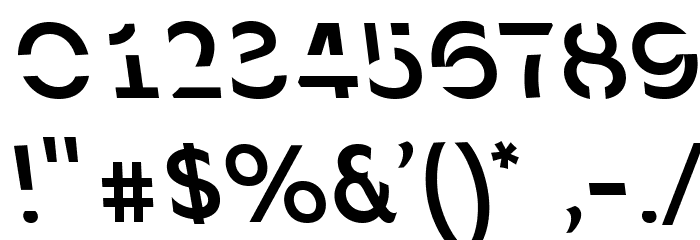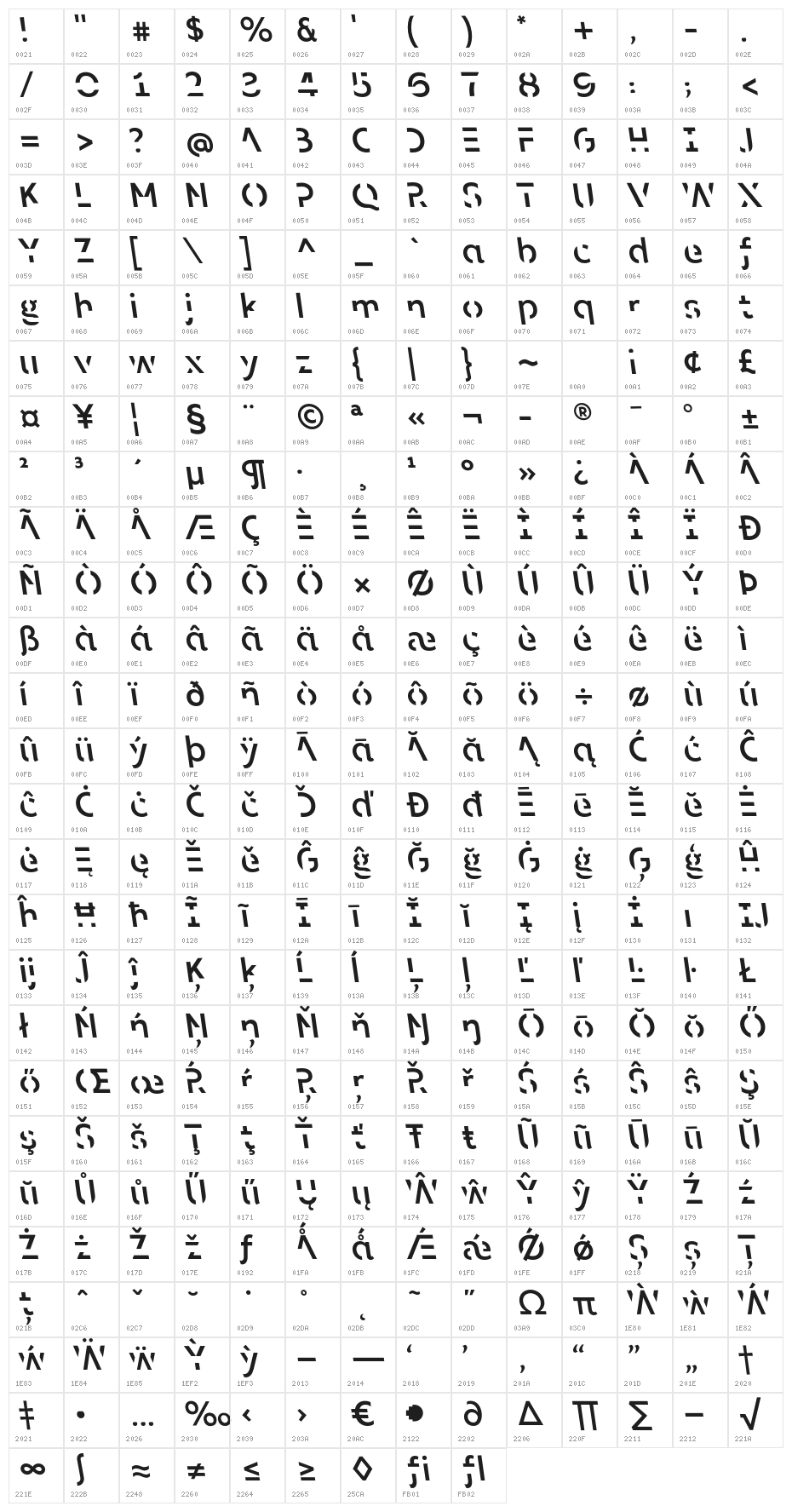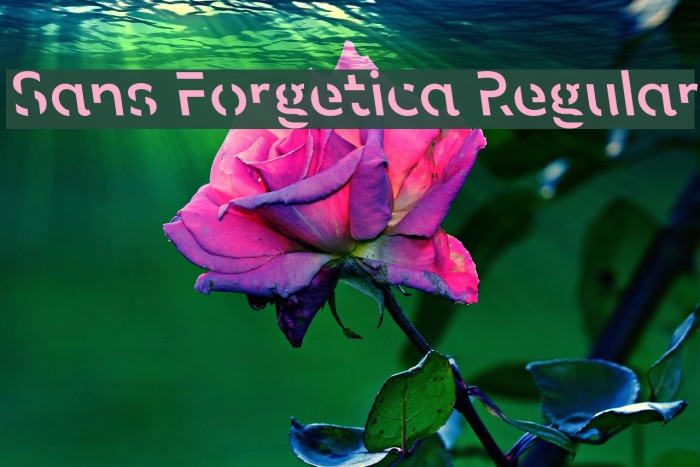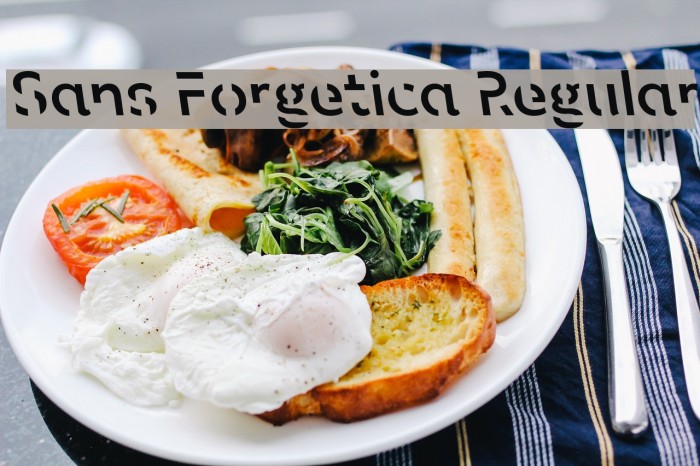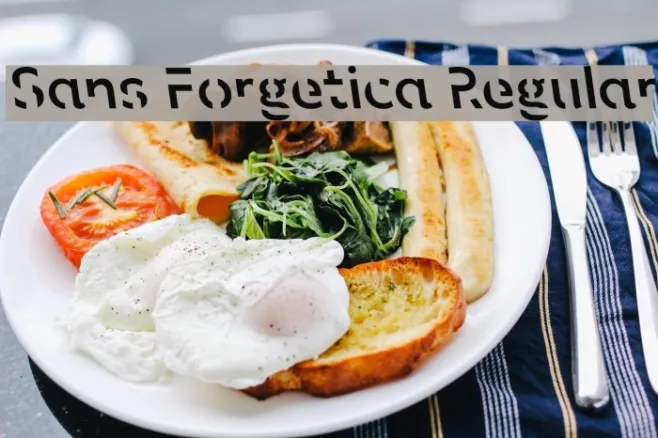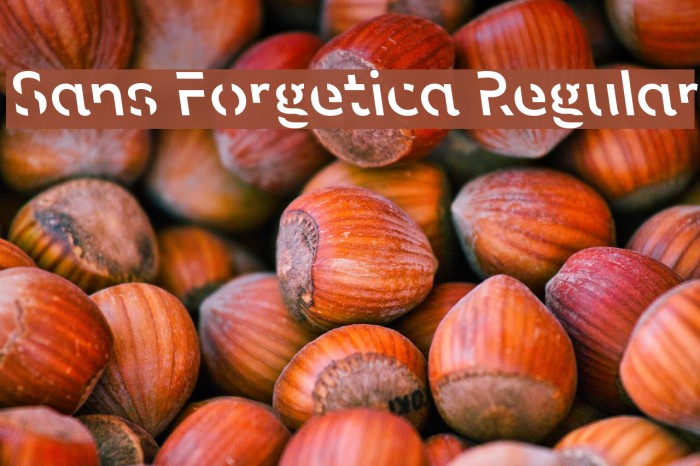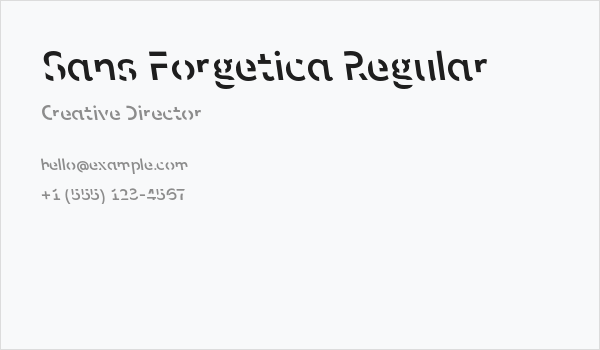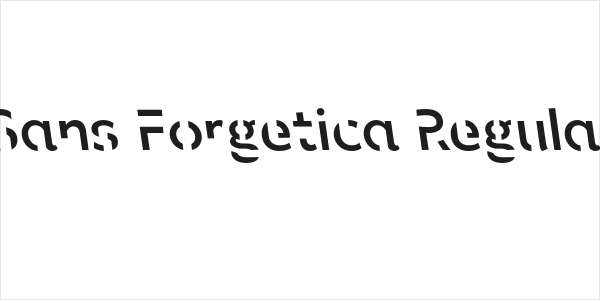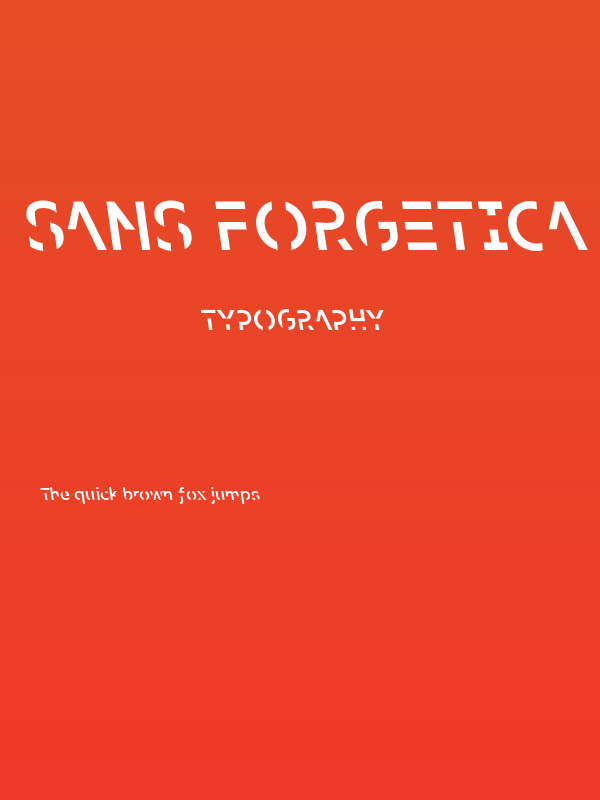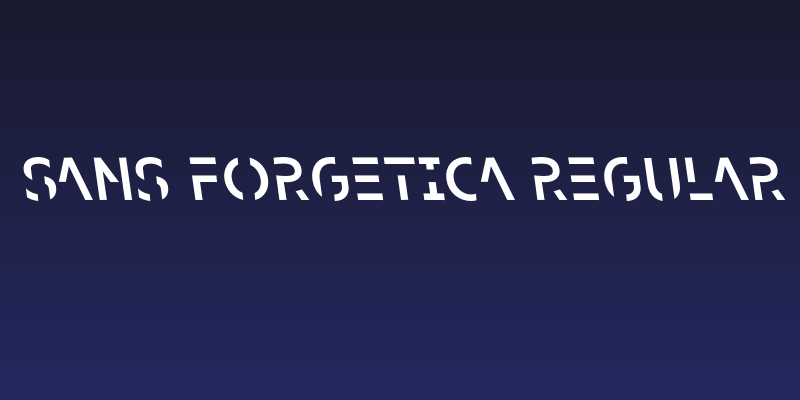
Sans Forgetica Regular Font
Sans Forgetica Regular Description
This font features a unique and innovative design with deliberate gaps and slants in each character, intended to enhance memory retention. The letters are bold and sans-serif, with a modern, experimental style that challenges traditional readability norms. The font's distinctive appearance is characterized by its fragmented and angular forms, which create a visually striking and memorable effect. It is designed to be both functional and aesthetically intriguing, making it suitable for educational and creative applications.
| Overall Style | Modern, Experimental |
| Use Case | Headlines, Educational materials, Creative projects |
| Proposed Projects | Ideal for educational materials, creative projects, and any design work aiming to capture attention and improve recall. |